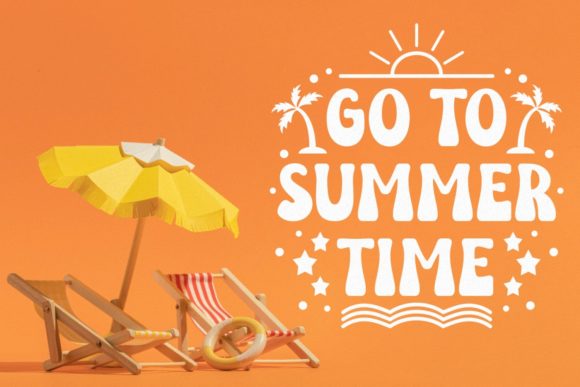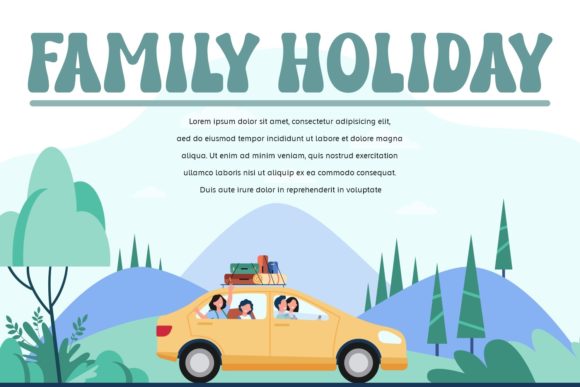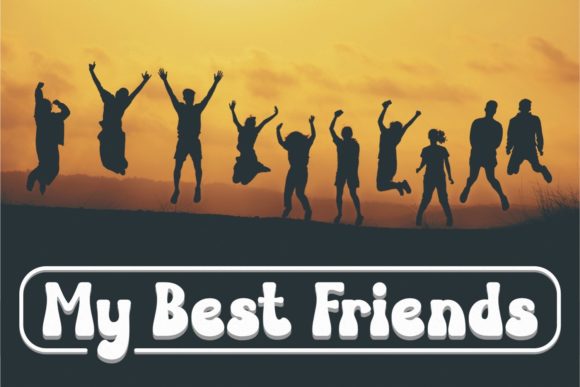
Introduction to Brako Dream Font
Brako Dream is a sweet and original display font.
It is perfect for any branding project such as logos, t-shirt printing, creative products, and more .
Brako Dream Font offers exceptional quality and versatility, making it a valuable addition to your design toolkit. Whether you’re creating for personal projects or commercial use, Brako Dream Font delivers professional results.